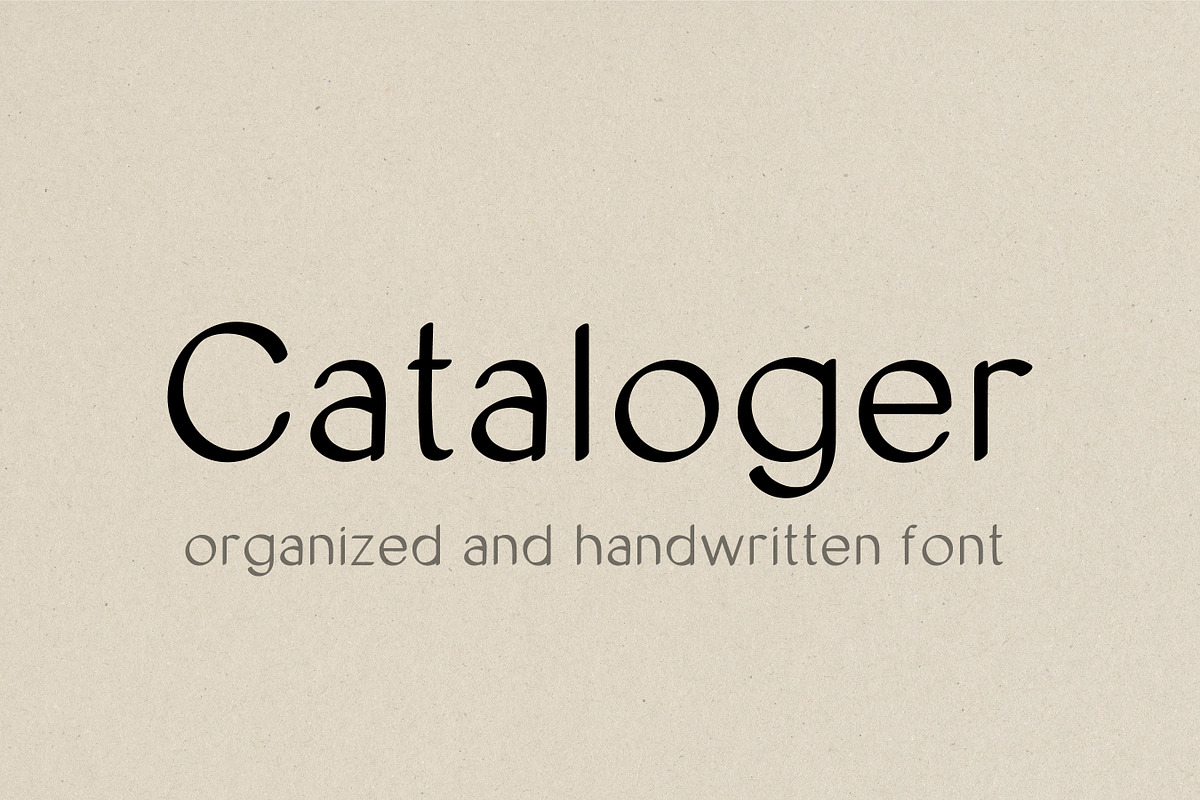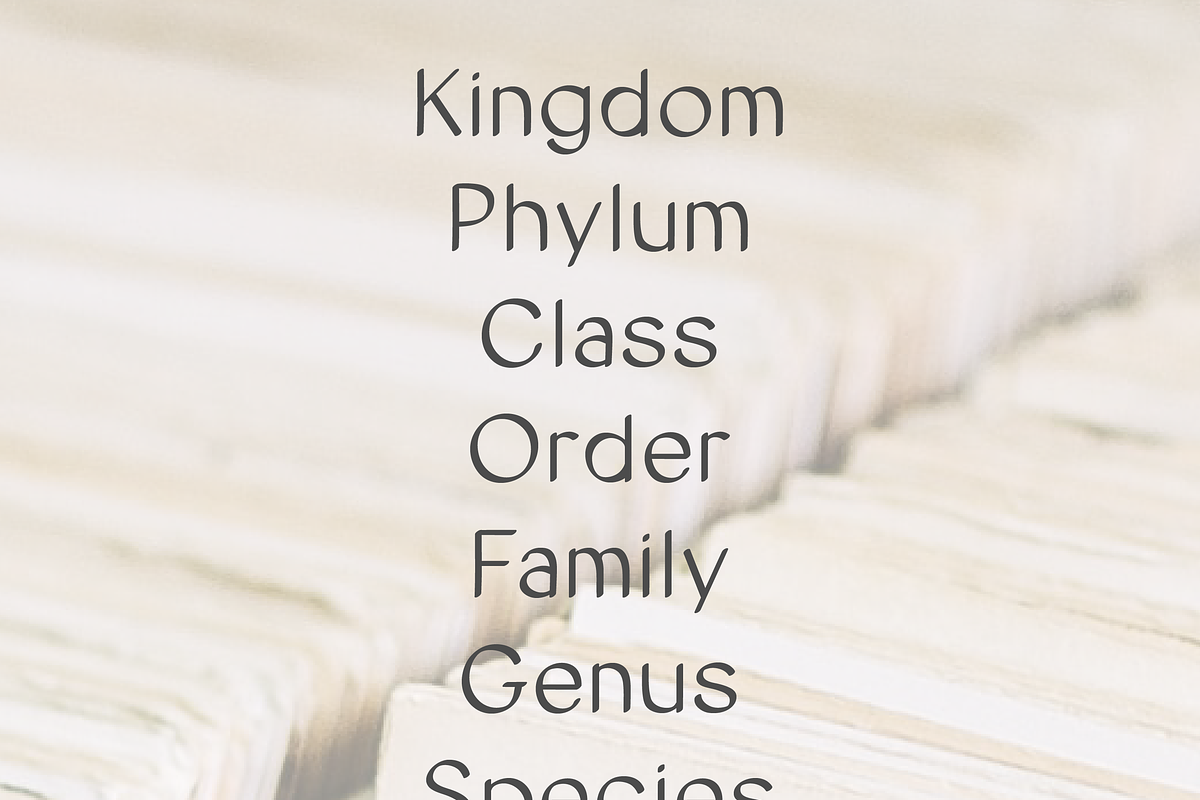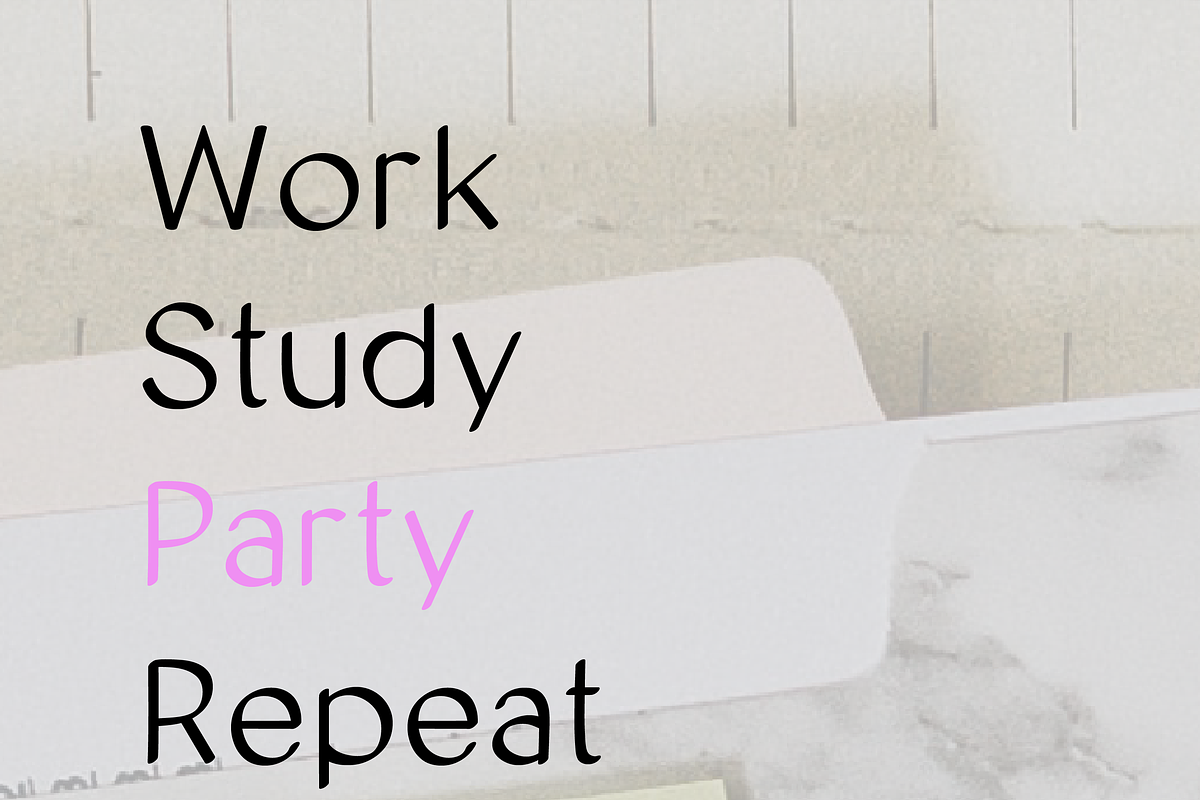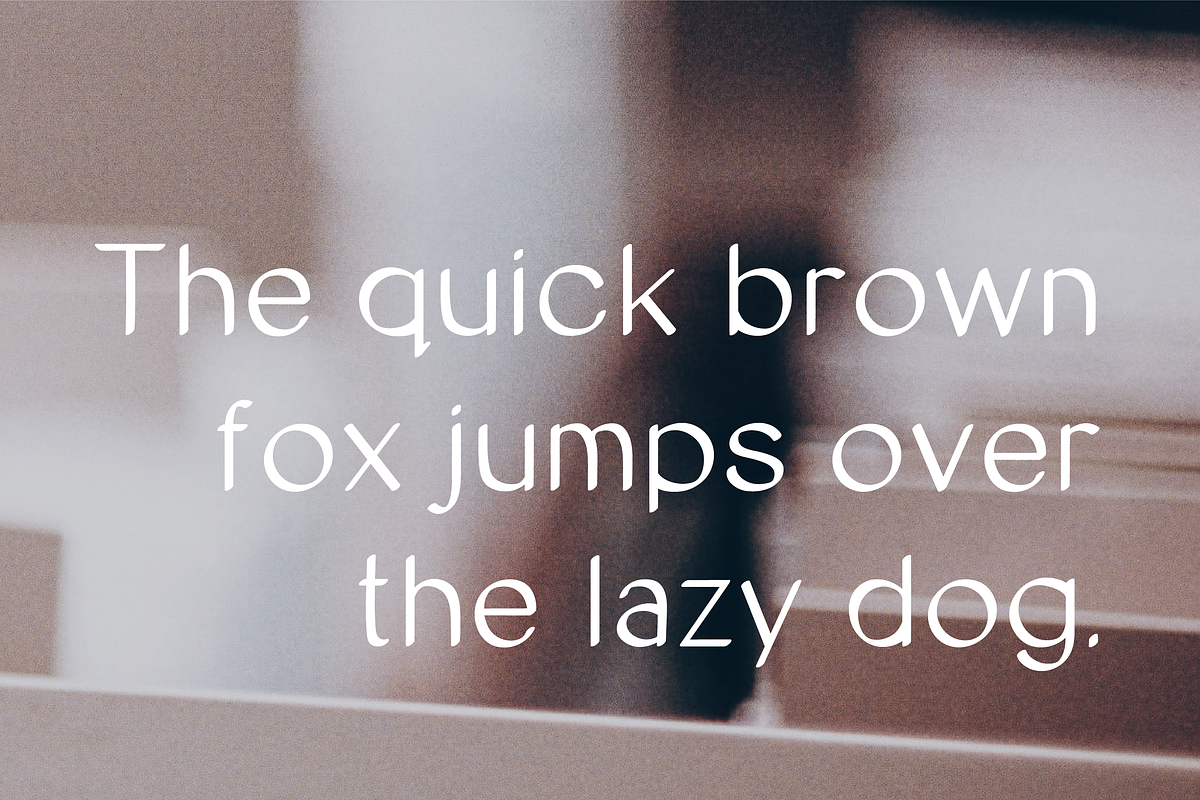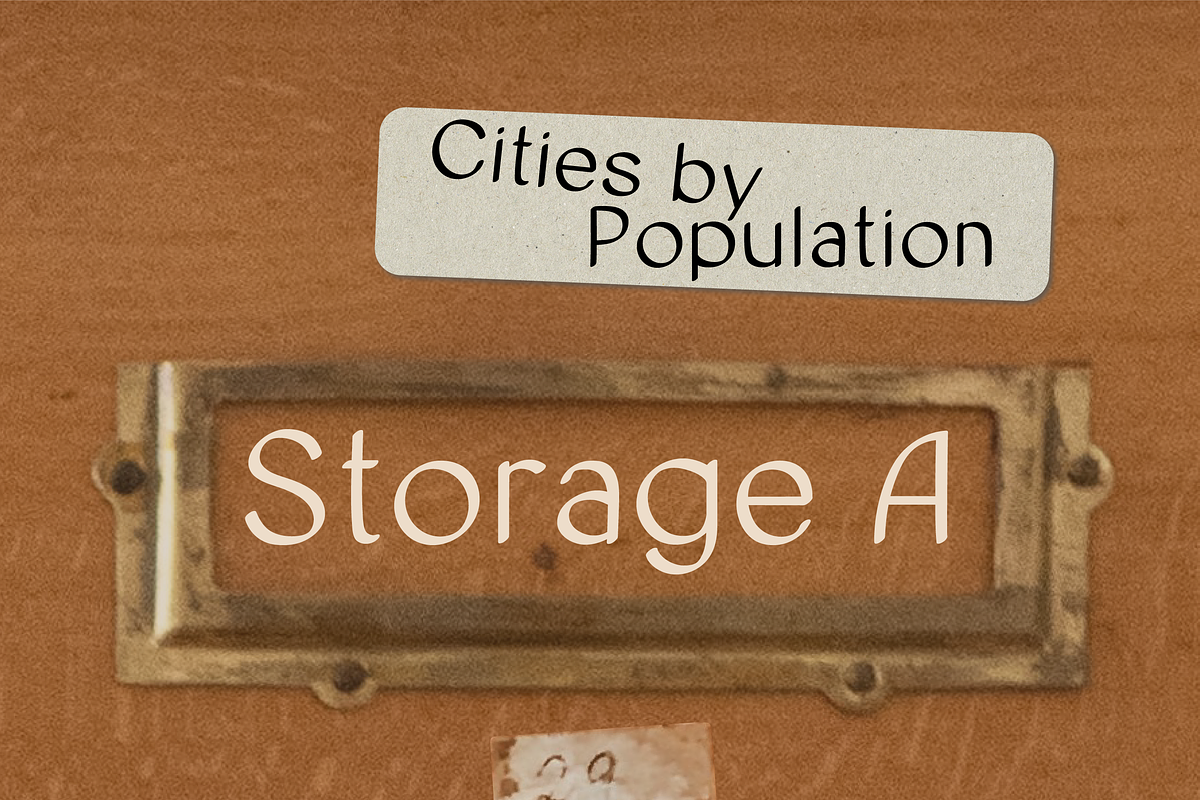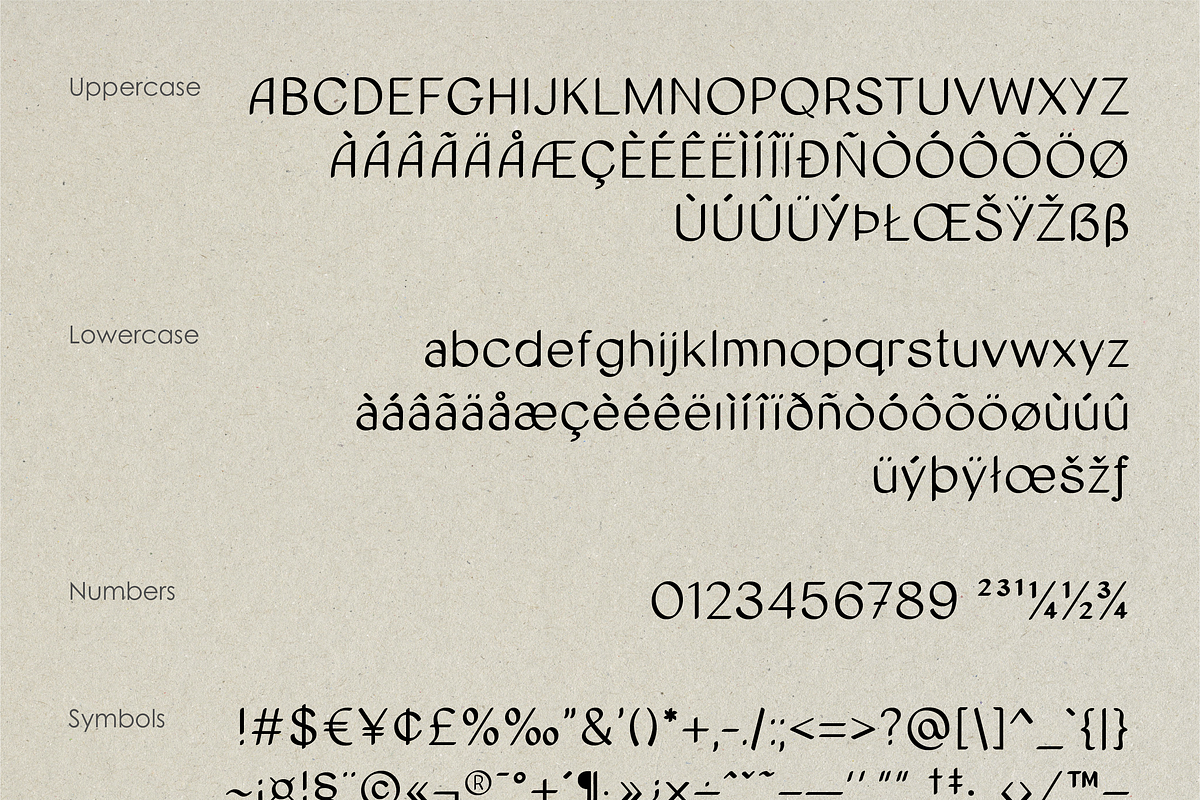
Cataloger Font
A truly organized storage section is complete with properly and neatly organized labels. This font is perfect for that. It is legible and professional enough to use in an office setting. It is also perfect for use in the home for example organizing a home or a pantry.
Great for branding, crafting, display font, wall art, handcrafted, hand written, handwritten, digital planner, and so much more.